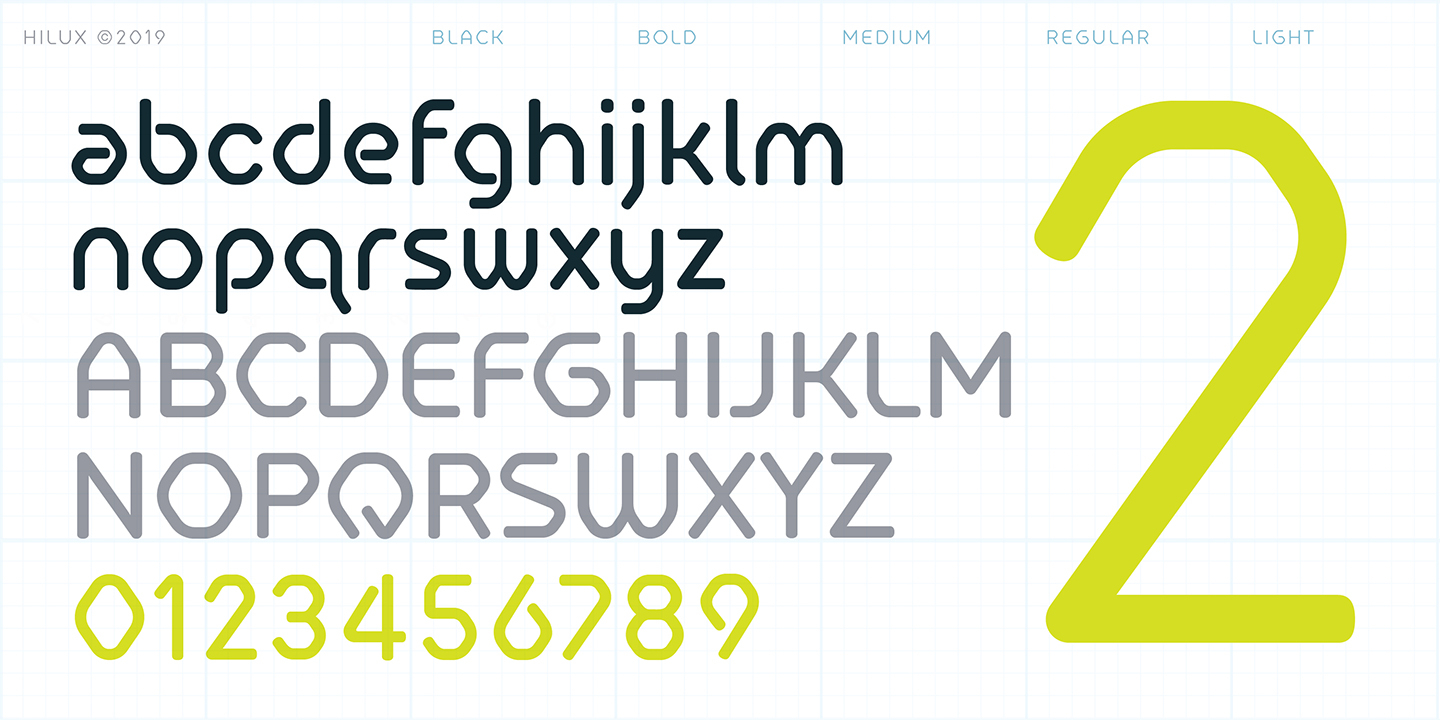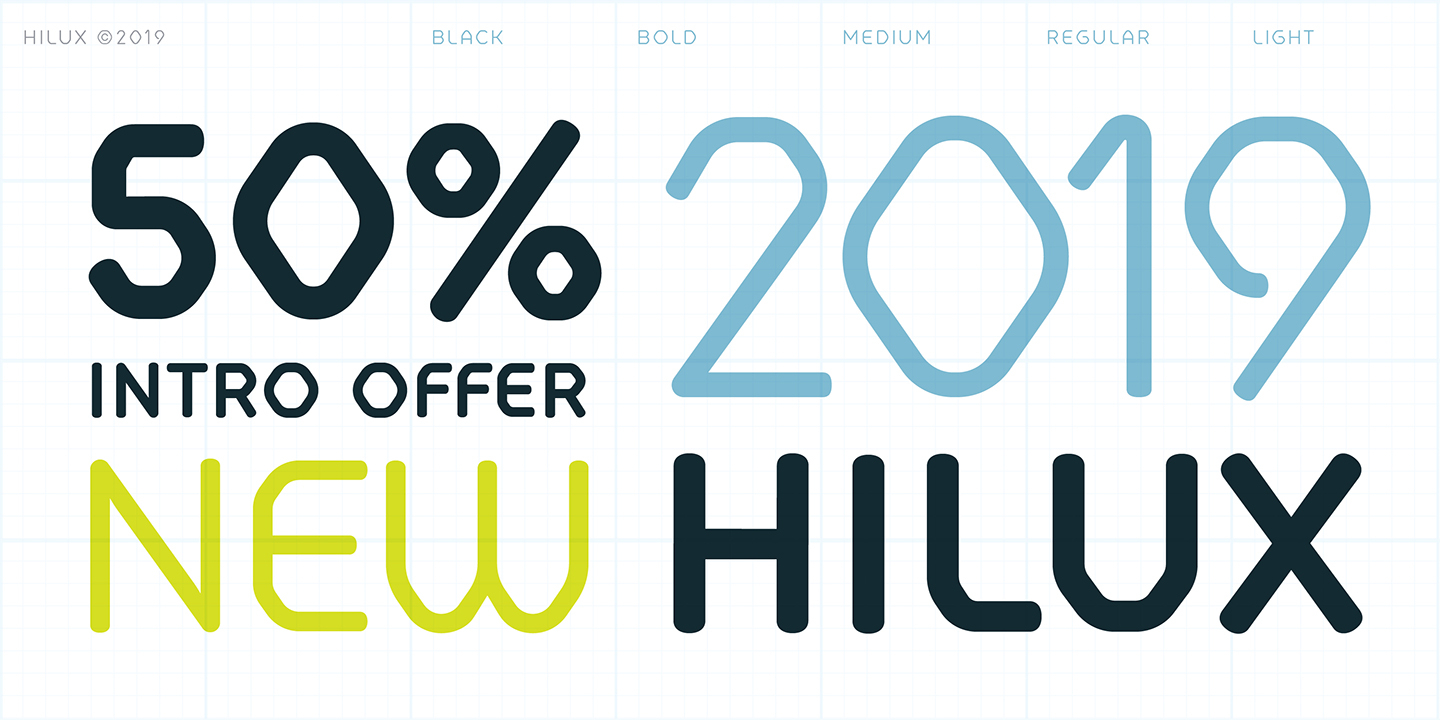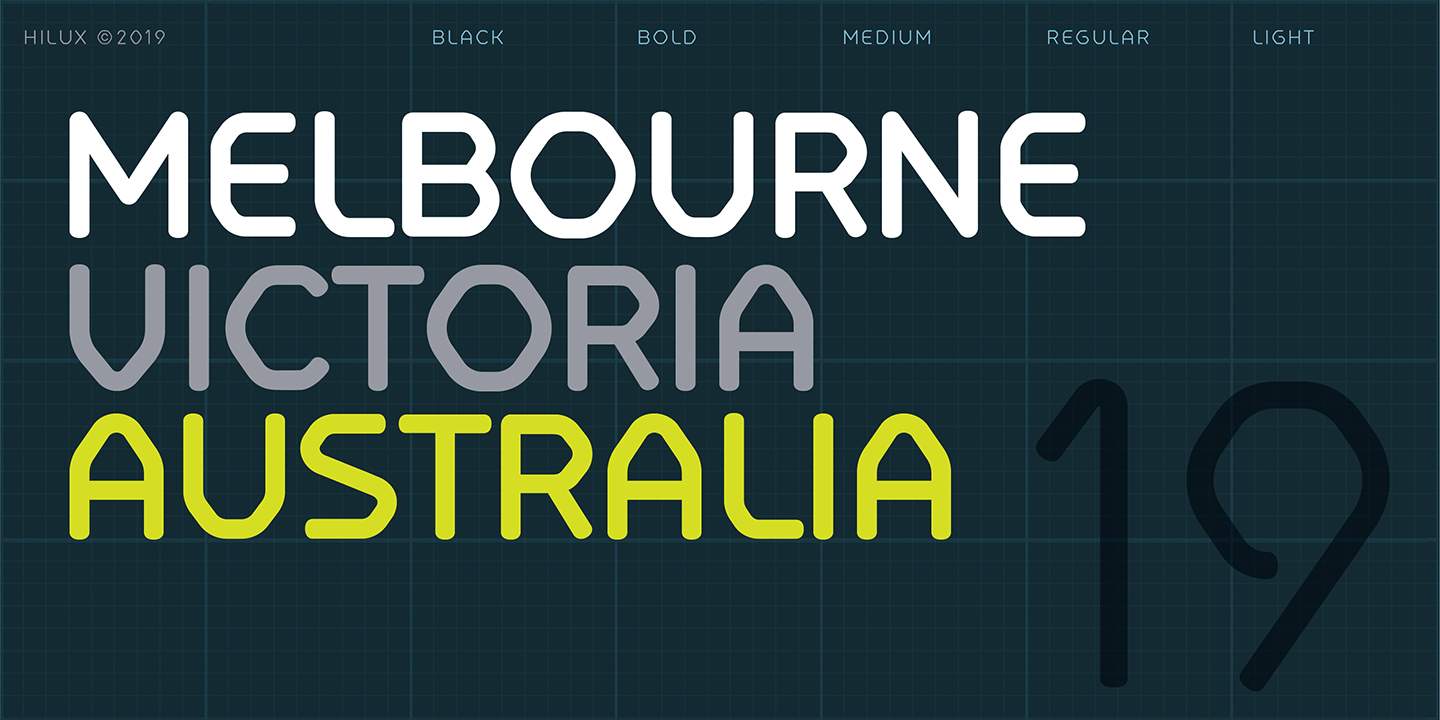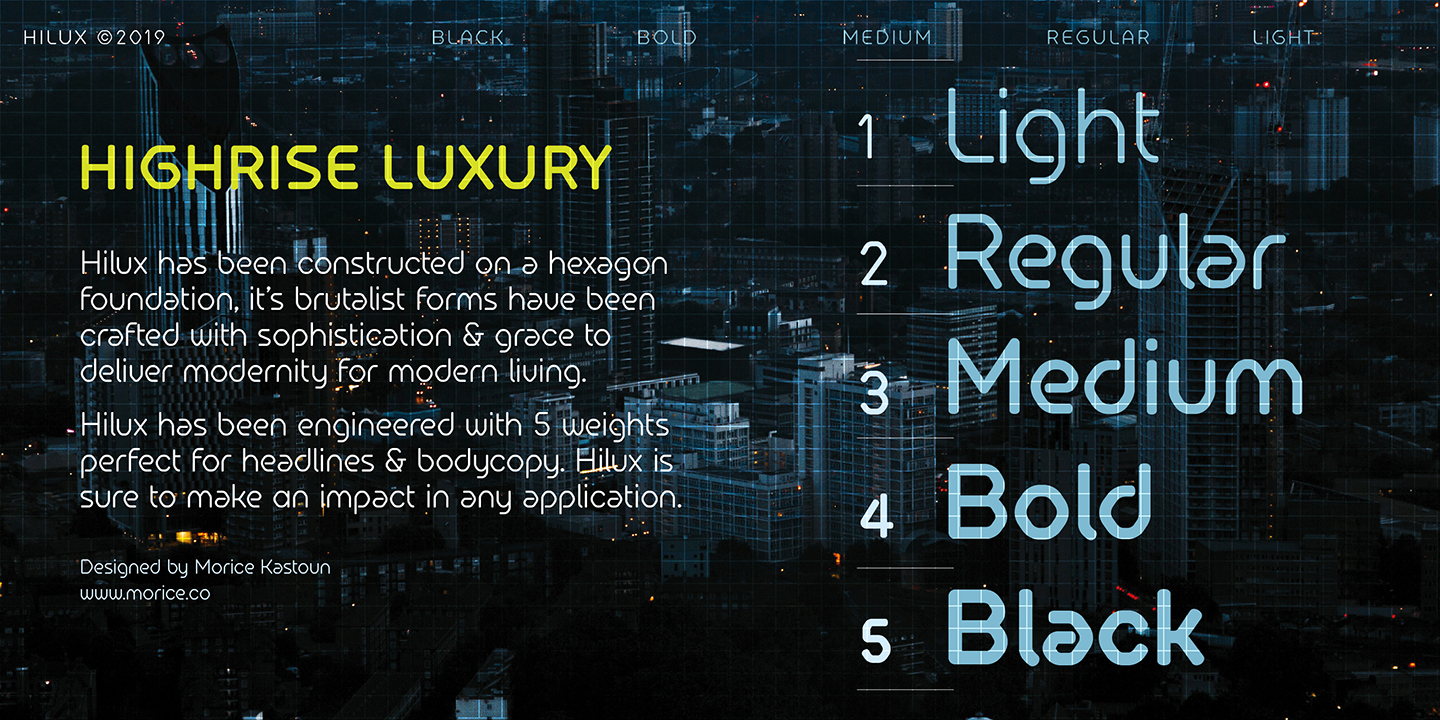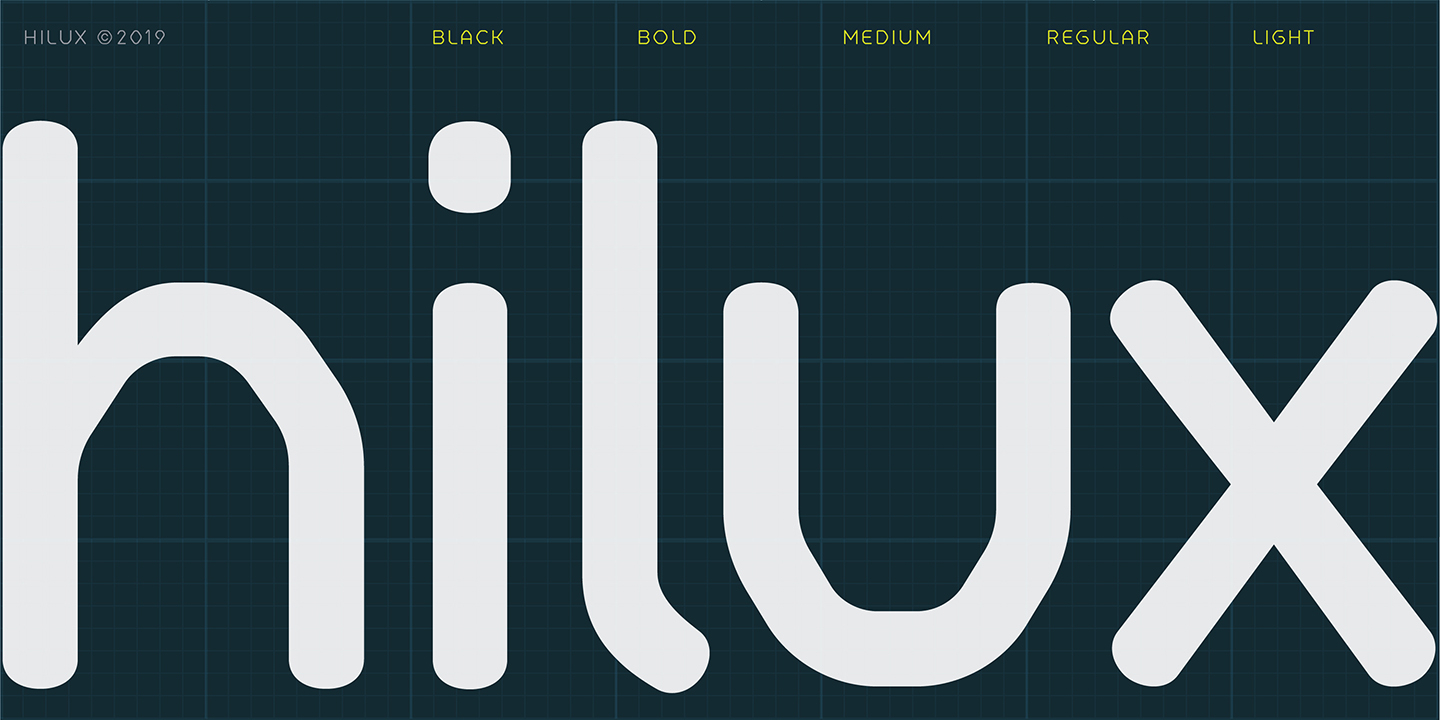
Hilux Font
This Hilux Font is perfect for automotive industry branding, off-road vehicle marketing, rugged equipment packaging, outdoor adventure companies, construction industry materials, heavy-duty machinery graphics, expedition gear branding, industrial manufacturing signage, tough workwear designs, and durable product communications.
What makes this Hilux Font exciting is its rugged durability that captures the unbreakable strength and reliable performance of heavy-duty vehicles and industrial excellence. The font features robust letterforms with automotive characteristics that convey mechanical reliability, industrial toughness, and engineering durability. Its tough character and vehicle-inspired design make it ideal for brands seeking to communicate industrial strength, automotive excellence, and rugged reliability in automotive and manufacturing markets.
The Hilux Font family includes light, regular, medium, and bold weights with automotive alternates, industrial variants, and rugged flourishes. This comprehensive durable font family provides designers with reliable typographic tools to create tough compositions while maintaining the automotive character essential for industrial brands and heavy-duty communications.
Automotive companies and industrial manufacturers consistently choose Hilux Font Free Download for projects requiring authentic automotive appeal and industrial durability credibility. This font's distinctive rugged character perfectly captures the mechanical excellence and industrial reliability that resonate with audiences who appreciate automotive engineering, industrial quality, and brands that embody tough performance and unbreakable durability.
The reliable construction of Hilux Font showcases powerfully designed letterforms with automotive proportions that ensure exceptional durability across all industrial applications. Its rugged appearance and mechanical character create memorable impressions while maintaining the readability necessary for effective automotive communication and industrial materials.
Professional designers appreciate how Hilux Font brings immediate automotive authenticity and industrial strength to brand communications. The font's durable nature allows organizations to communicate mechanical excellence and automotive reliability while maintaining the professional quality necessary for effective positioning in automotive and heavy-duty industrial markets.
The dependable appeal of Hilux Font makes it particularly effective for brands emphasizing automotive durability, industrial strength, and mechanical reliability. Its tough character resonates strongly with audiences who appreciate automotive engineering, industrial quality, and brands that represent the unbreakable performance and rugged excellence of automotive and industrial achievement.
Whether developing branding for automotive manufacturers or creating materials for industrial equipment companies, Hilux Font Free Download provides the durable typographic foundation that automotive brands need to communicate their mechanical excellence, industrial reliability, and the rugged strength that defines automotive engineering and heavy-duty industrial achievement.